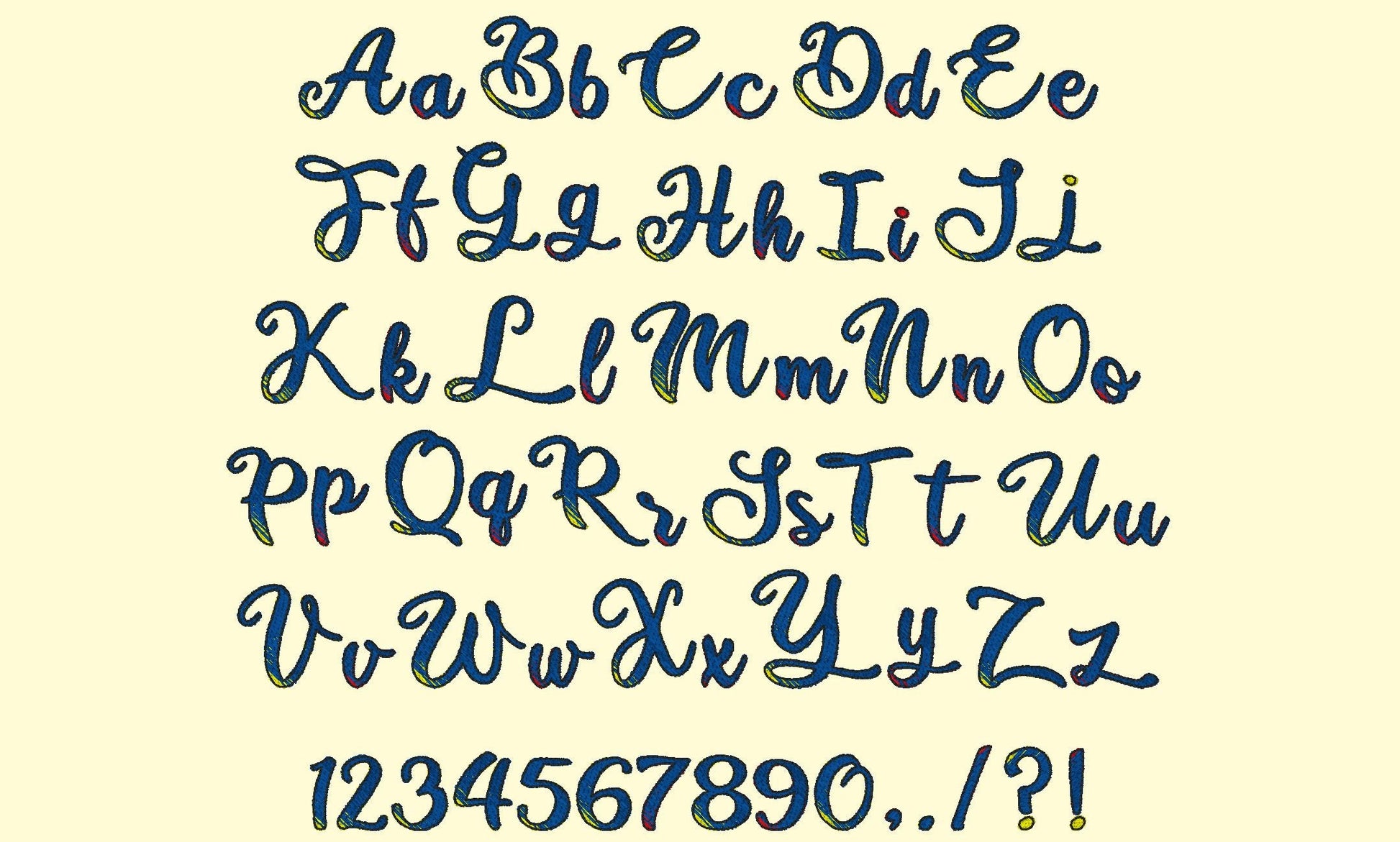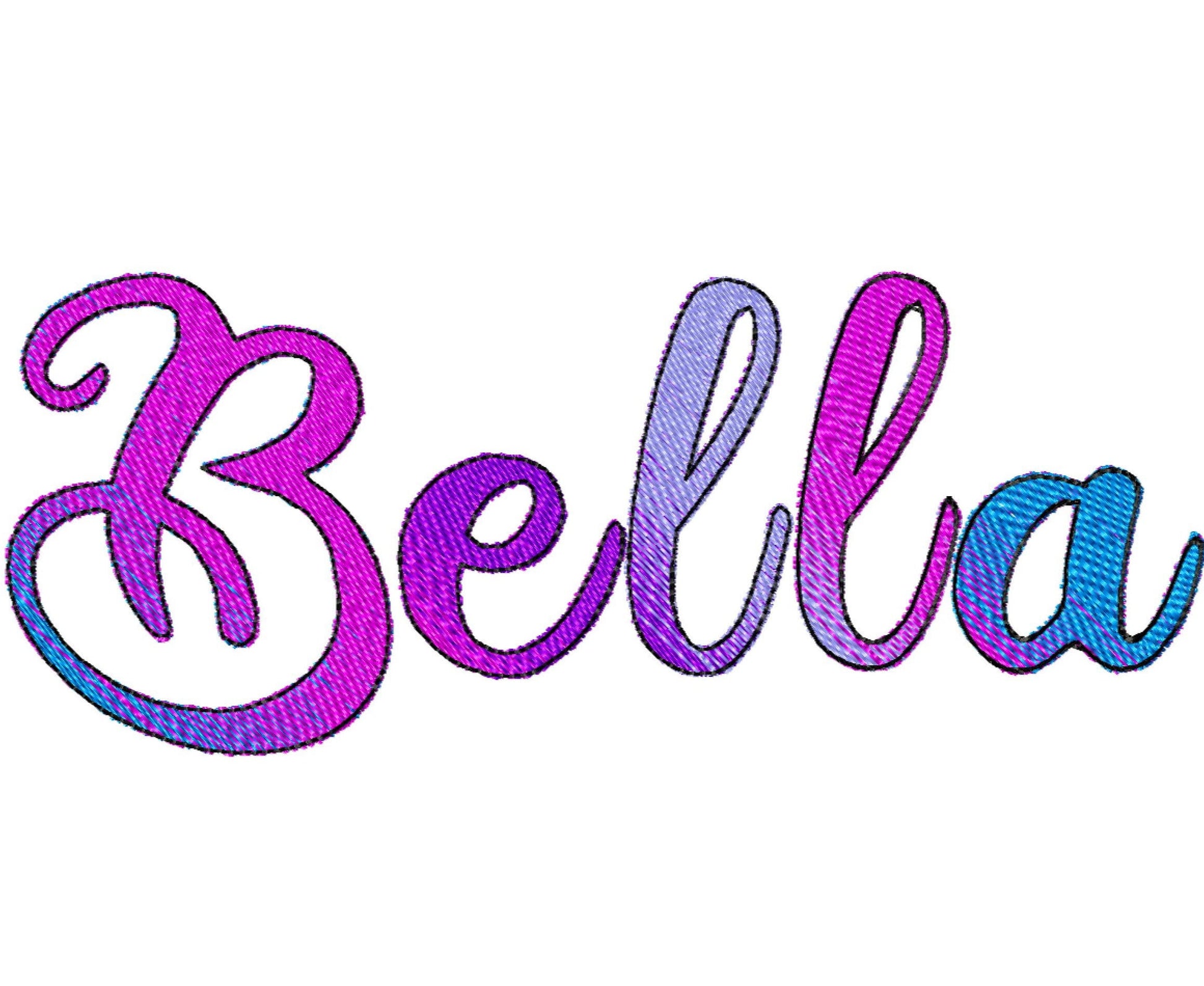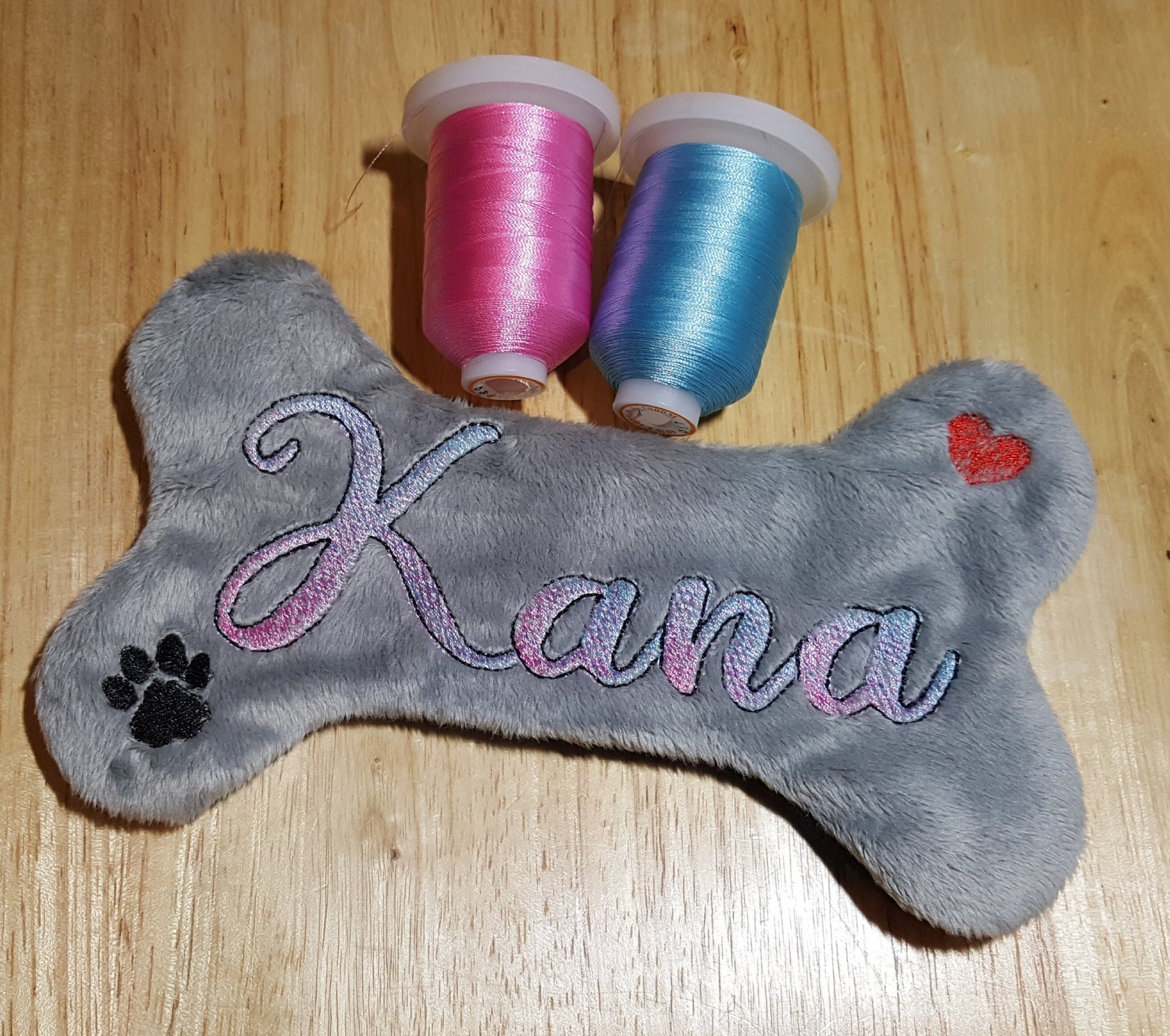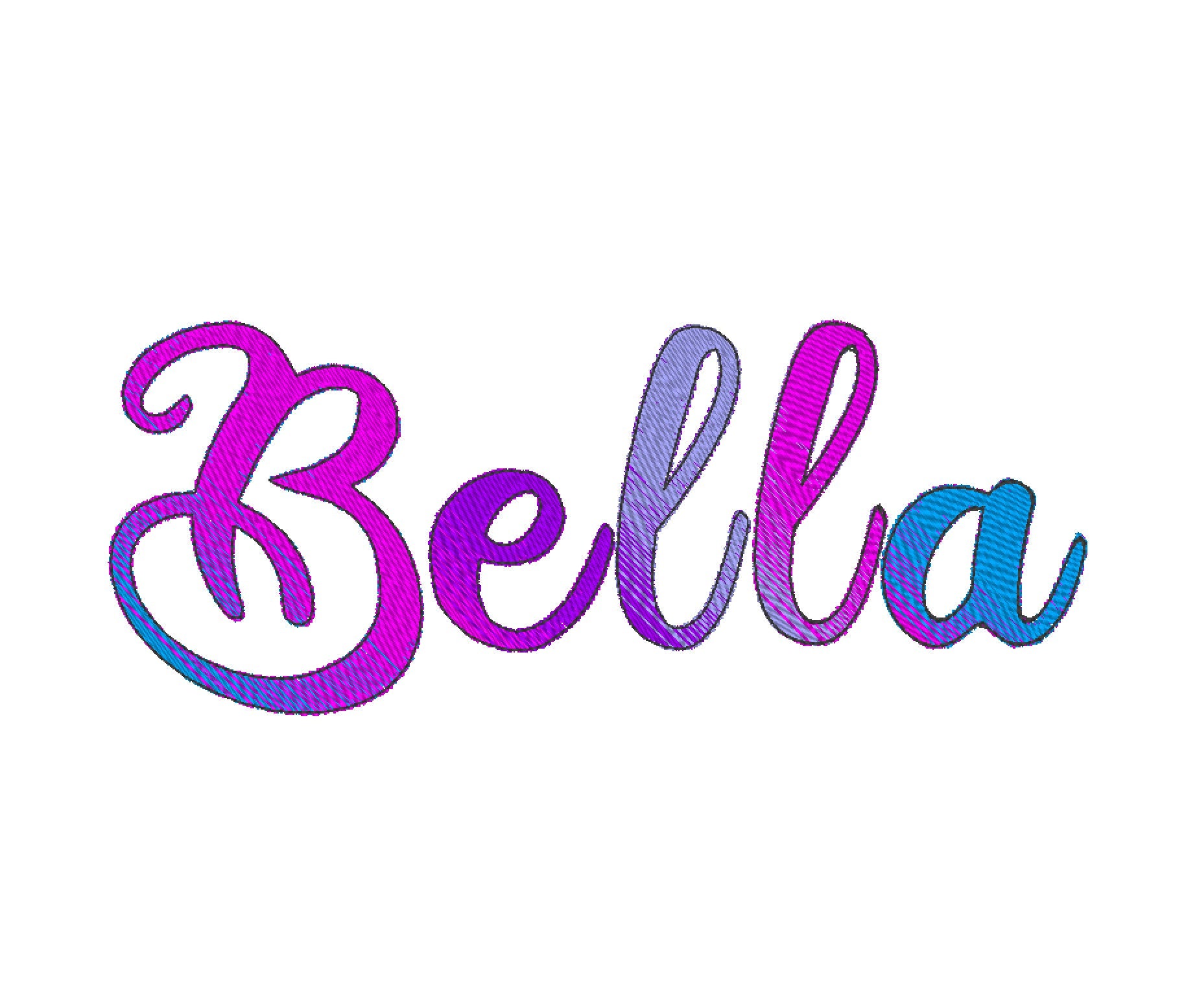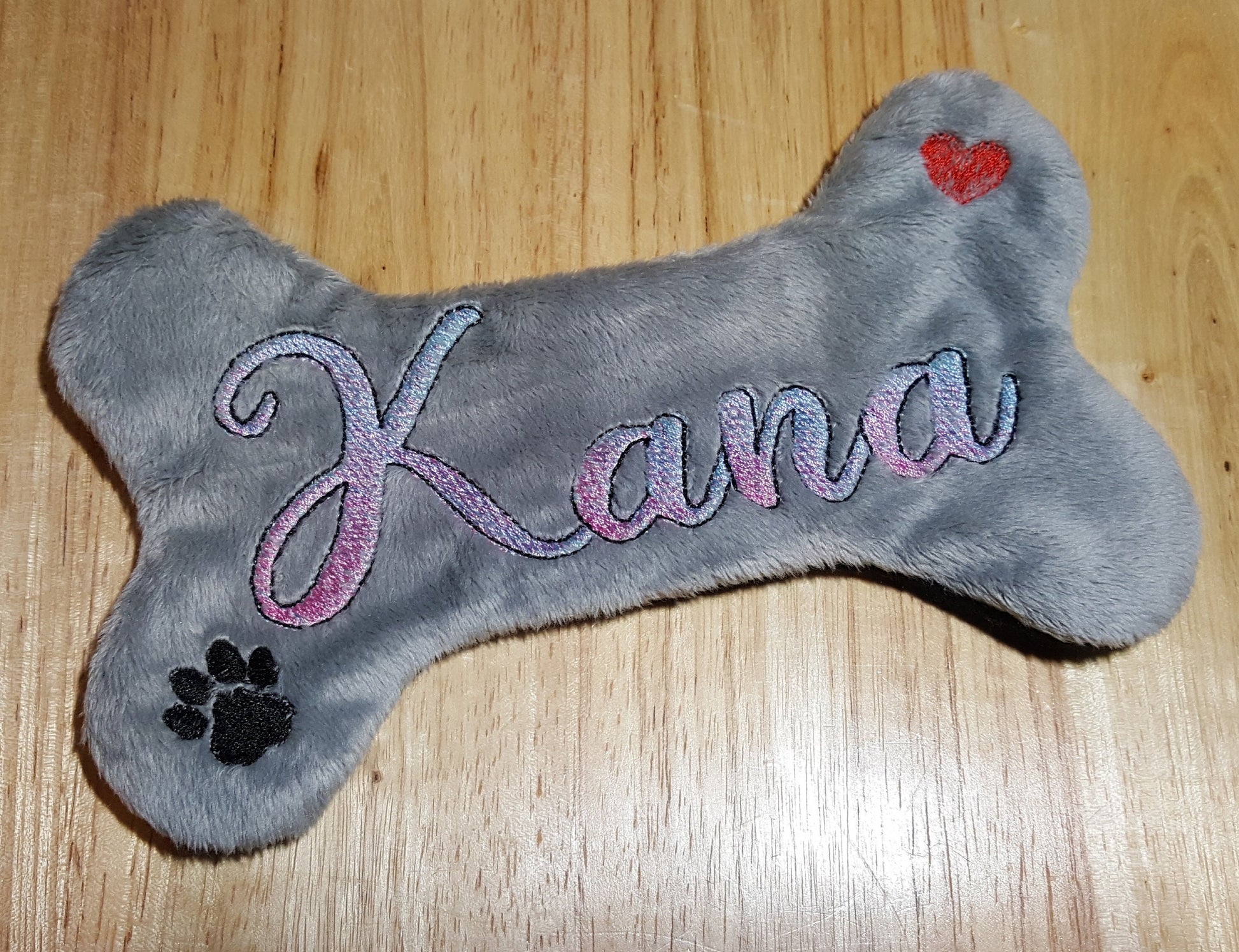
Or click to open the linkBella, an iridescent font stitched with two ordinary thread colors that blend into a rainbow gradient, no special thread needed. Lovely for names, monograms and sayings.
Uppercase and lowercase letters, numbers 0 to 9 and punctuation, in six sizes: 1.2, 1.6, 2, 2.4, 2.8 and 3.1 inches. Each letter shifts from one thread color to the other, so it shimmers all by itself.